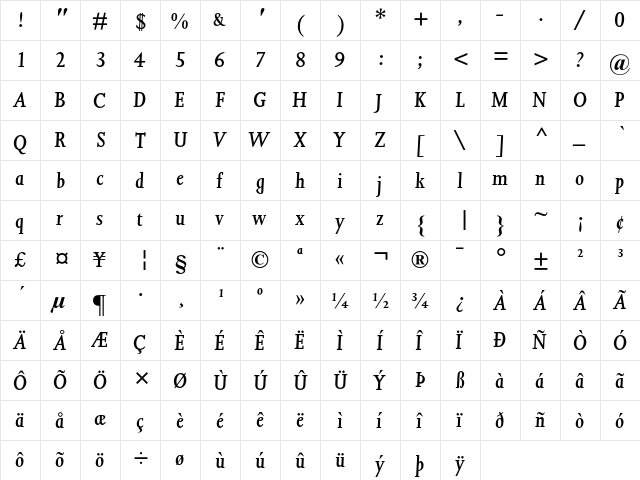
Joanna Semi Bold Italic Font Preview
Joanna Semi Bold Italic
Design Context for Joanna Typeface
Joanna takes a measured approach to typography — its balanced proportions and neutral character make it a reliable workhorse for both digital and print work. The dynamic lean of this cut emphasises speed and emphasis in any layout. Its bold stroke weight gives it real presence on the page.
Pro Tip: Use Joanna for emphasis, pull quotes, and subheadings where its slanted energy can add rhythm to the layout.